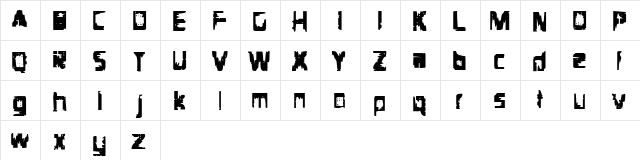
Design Context for Scraped Knee Typeface
Scraped Knee is a composed and adaptable typeface that performs quietly and consistently across a wide range of design contexts.